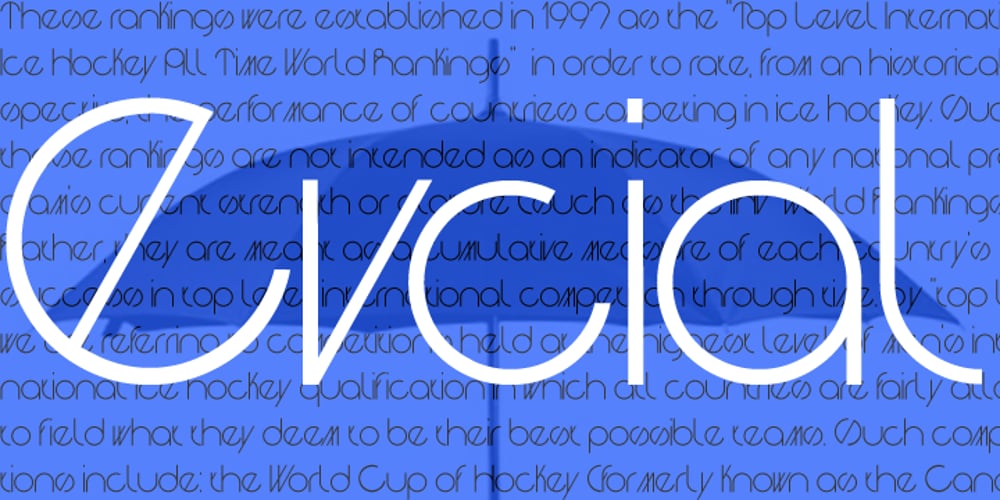
Evcial Font Family was designed by E Victor C and published by EVCco. Evcial contains 1 styles and family package options. Inspired by the elegant, rounded geometry of classic sans-serifs like Harry™ and Cirkulus™, Evcial was designed in 2000 to serve as the logo font for EVCco’s website. The composition of each alpha-numeric glyph in Evcial is restricted solely to circular curves and lines of either 90 or 55 degrees, thus lending an air of chic consistency to this sophisticated typeface. Comes packaged in both TrueType and OpenType formats with standard complement of alpha-numeric glyphs, punctuation marks, mathematical symbols, and Western European diacritics.